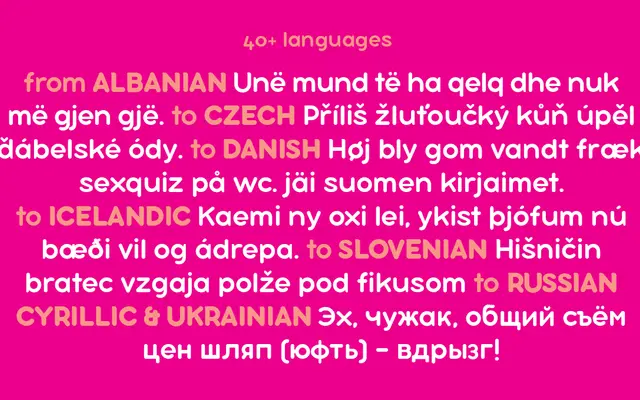
Bubbleboddy Neue
Zetafonts · Francesco Canovaro, Andrea Tartarelli · 2016
A redesign of one of Zetafonts' earliest typefaces, reworked with additional weights and extended script support to preserve its round, chunky 1980s character.
Originally one of Zetafonts' first releases, the Neue version adds Thin, Light and Bold weights alongside the existing Regular and Extrabold, plus a decorative Inline cut. The redesign also introduced Latin, Greek and Cyrillic coverage across 200 languages and improved on-screen readability. The soft, inflated letterforms suit logos, packaging and display work where a retro bubblegum personality is wanted.
A chunky, round display typeface with deliberately soft letterforms evoking 1980s bubblegum aesthetics, designed primarily for logos and headline use rather than text.